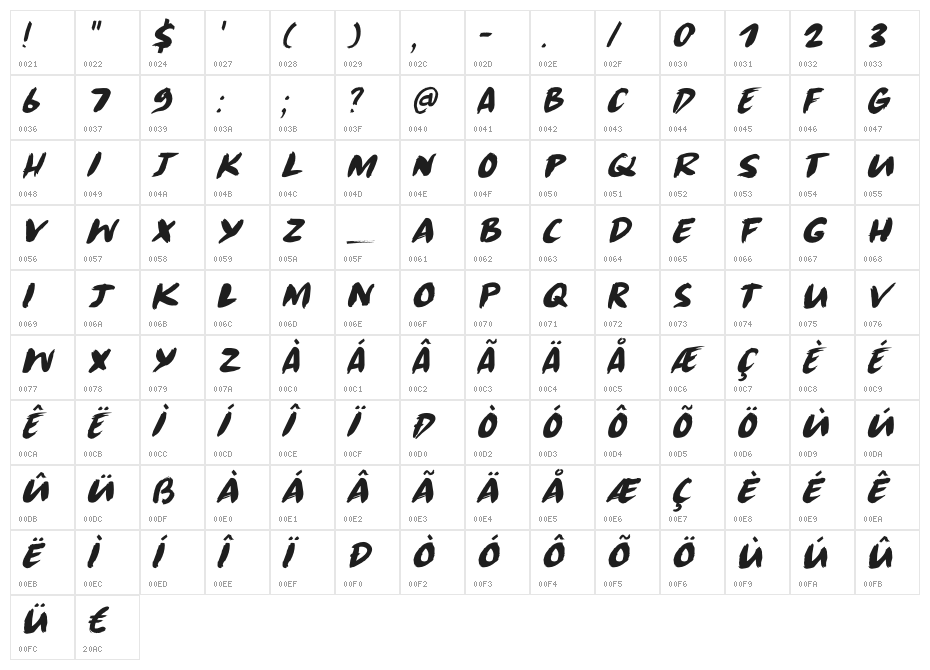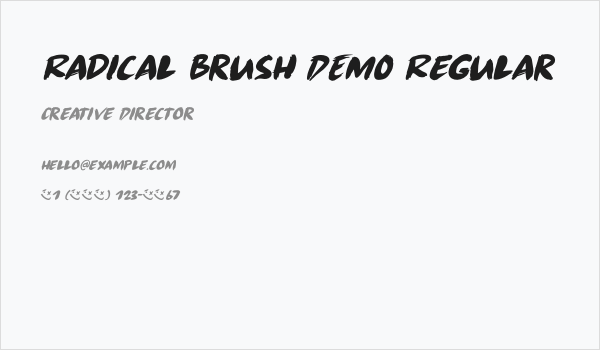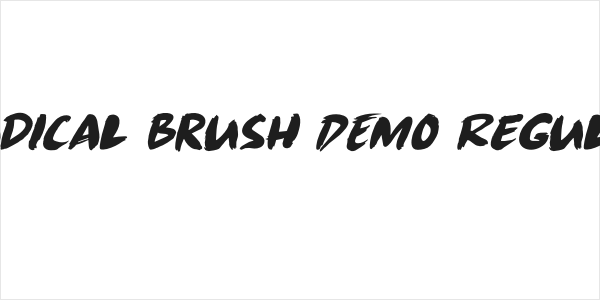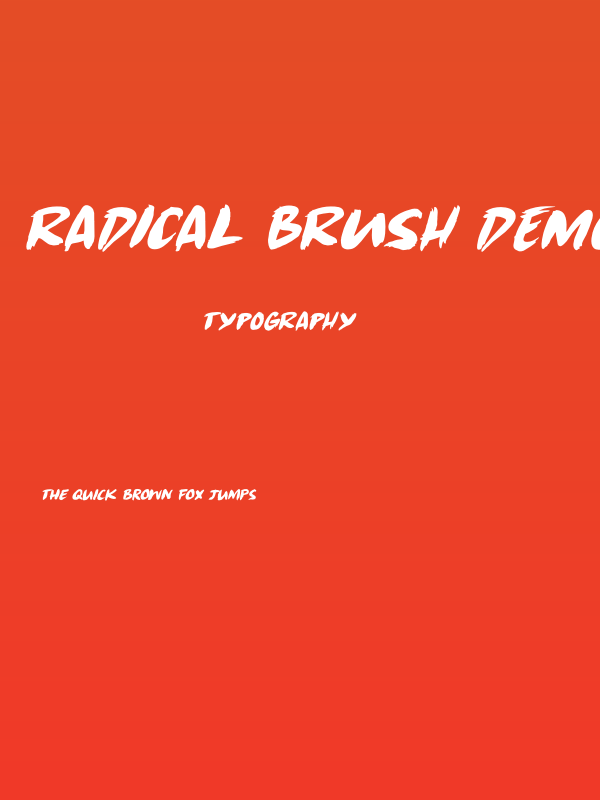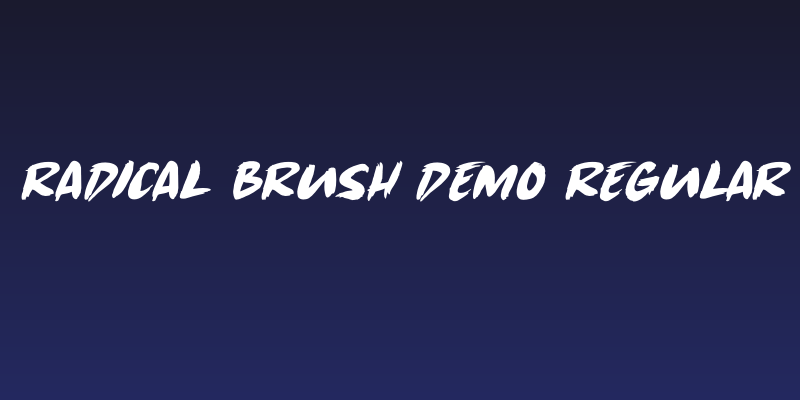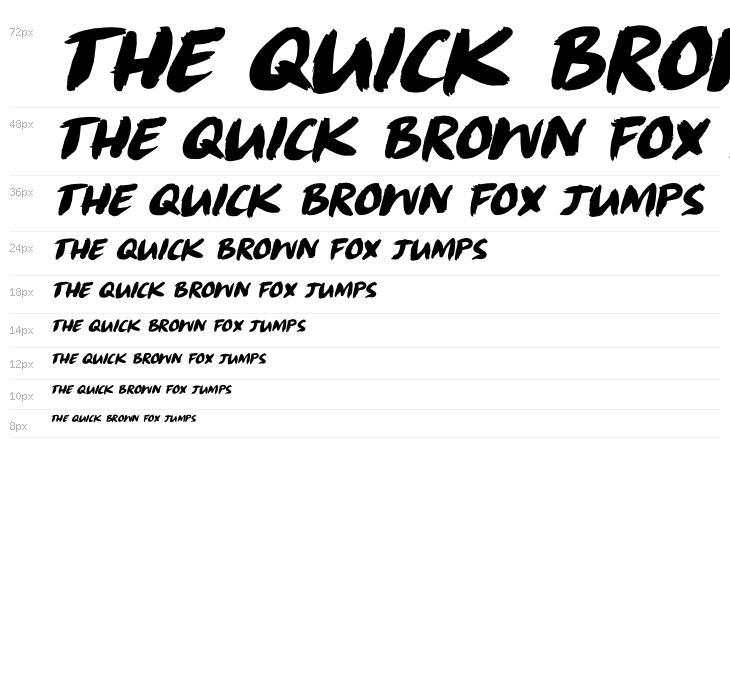
Radical Brush DEMO Regular Font
Radical Brush DEMO Regular Description
This font exudes a bold and energetic style, characterized by its brush-like strokes that convey a sense of movement and dynamism. The letters are crafted with a rough, textured appearance, reminiscent of hand-painted signage. The uppercase and lowercase letters maintain a consistent flow, with each character exhibiting unique variations that add to the overall artistic flair. The numbers and special characters follow the same aesthetic, ensuring a cohesive look across all text elements. This font is ideal for projects that require a strong visual impact and a touch of creativity.
| Overall Style | Modern, Artistic |
| Proposed Projects | Perfect for posters, branding, album covers, and creative advertising campaigns. |